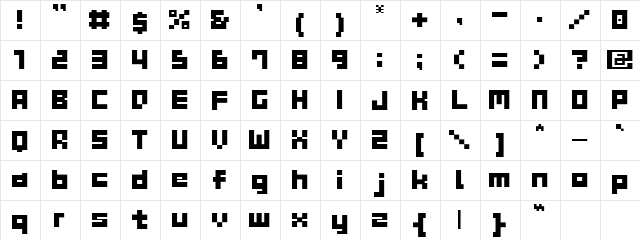
GAU_font_cube_B Regular Font Preview
GAU_font_cube_B Regular
Design Context for GAU_font_cube_B Typeface
GAU_font_cube_B is a composed and adaptable typeface that performs quietly and consistently across a wide range of design contexts.